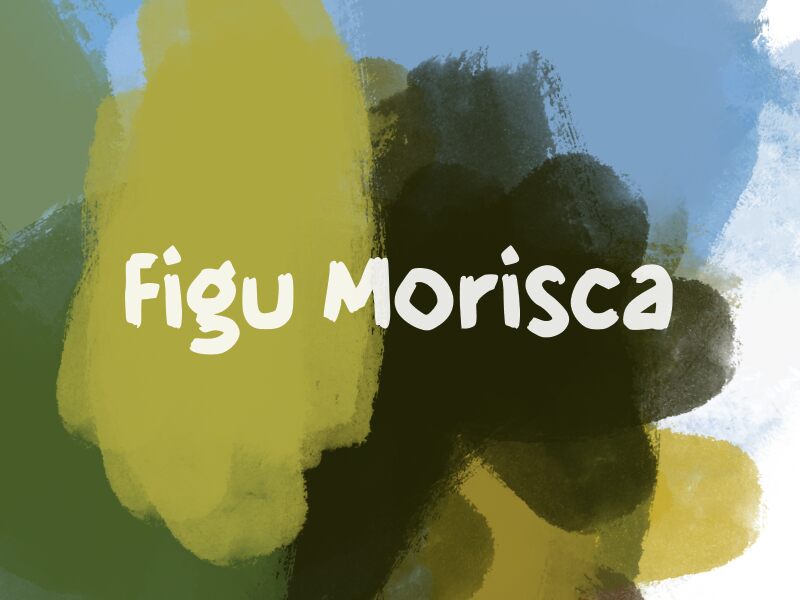
Figu Morisca
Figu Morisca is a bold, playful font that exudes a captivating comic-inspired flair. Designed with a whimsical, handwritten aesthetic, this display font immediately catches the eye with its dynamic, expressive strokes and striking, angular shapes. The bold weight of Figu Morisca lends it a sense of confidence and prominence, making it a compelling choice for attention-grabbing headlines, bold branding elements, and eye-catching display purposes.
This font's unique character and personality shines through in its distinctive letterforms, which seamlessly blend elements of traditional calligraphy with a modern, stylized sensibility. Figu Morisca's versatility makes it a versatile tool for designers seeking to infuse their projects with a touch of playfulness and visual interest, from vibrant poster designs to energetic social media graphics and beyond.